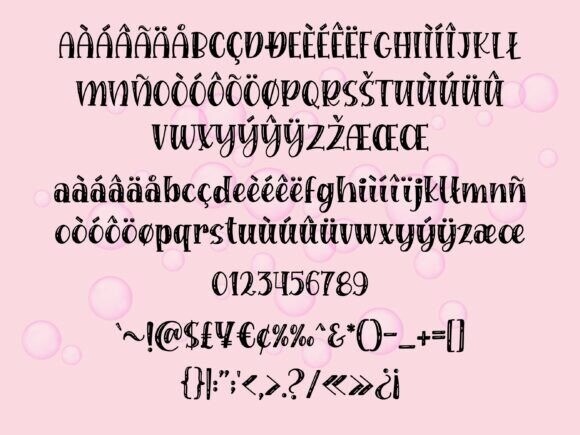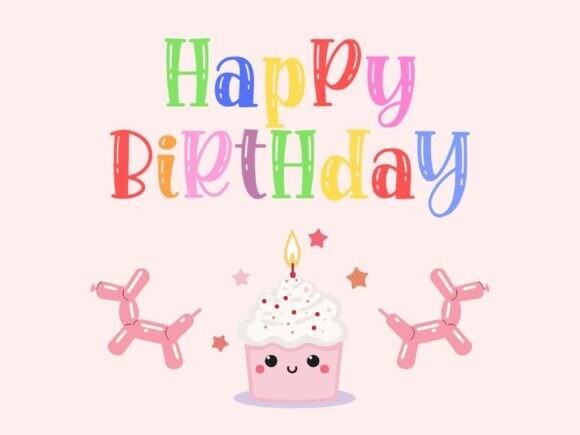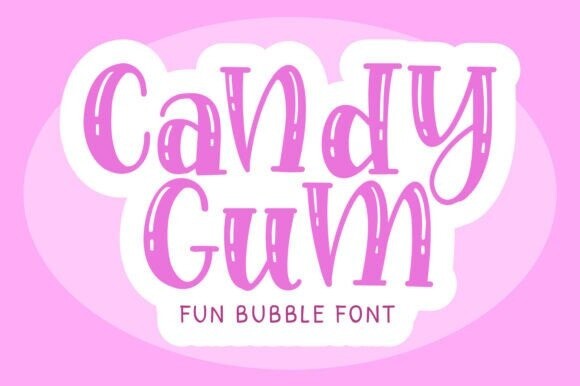
Candy Gum Font
Candy Gum Font, a joyfully hand-crafted, effervescent typeface designed to make your projects pop! Candy Gum’s character set dances with vivacity and charm, making it an ideal choice for book covers, baby shower announcements, birthday invitations, and any project needing a sprinkle of fun. Featuring a breadth of multilingual characters, this font transcends linguistic barriers, adding a playful flair to your international creations. Embrace the groovy exuberance of Candy Gum; it’s a font that truly knows how to have fun.